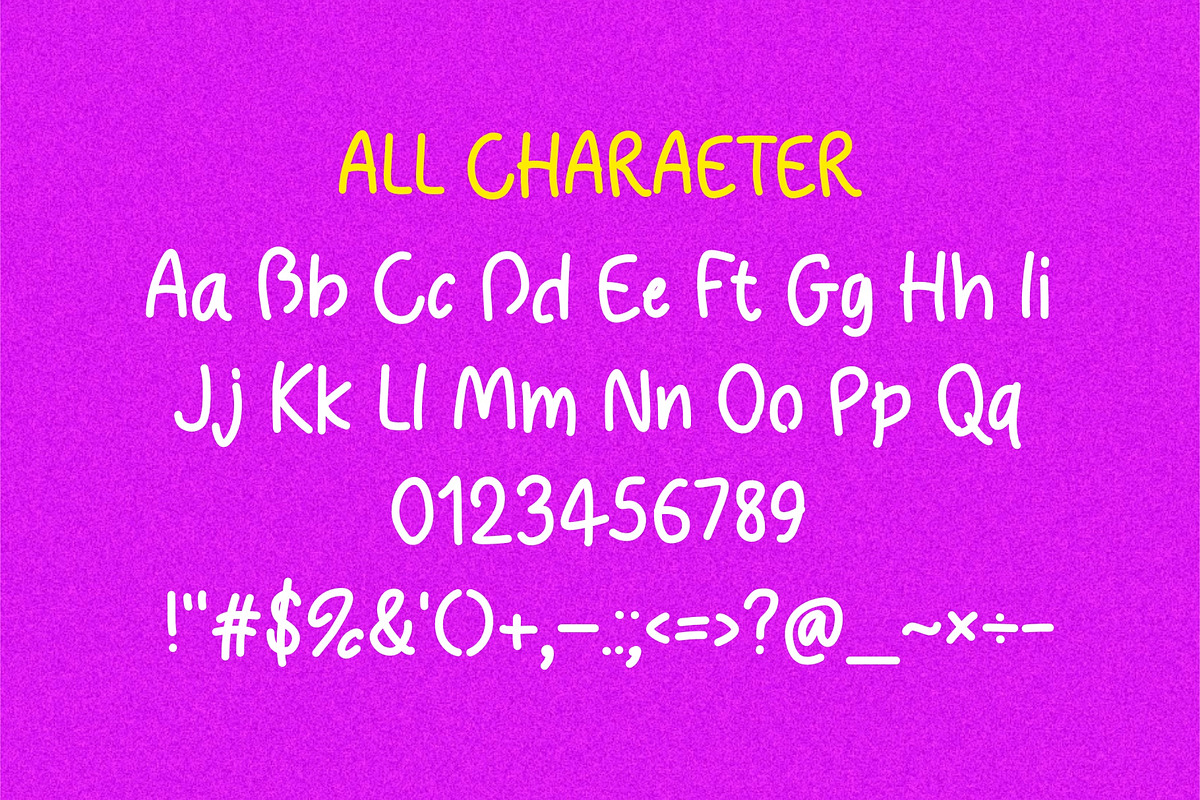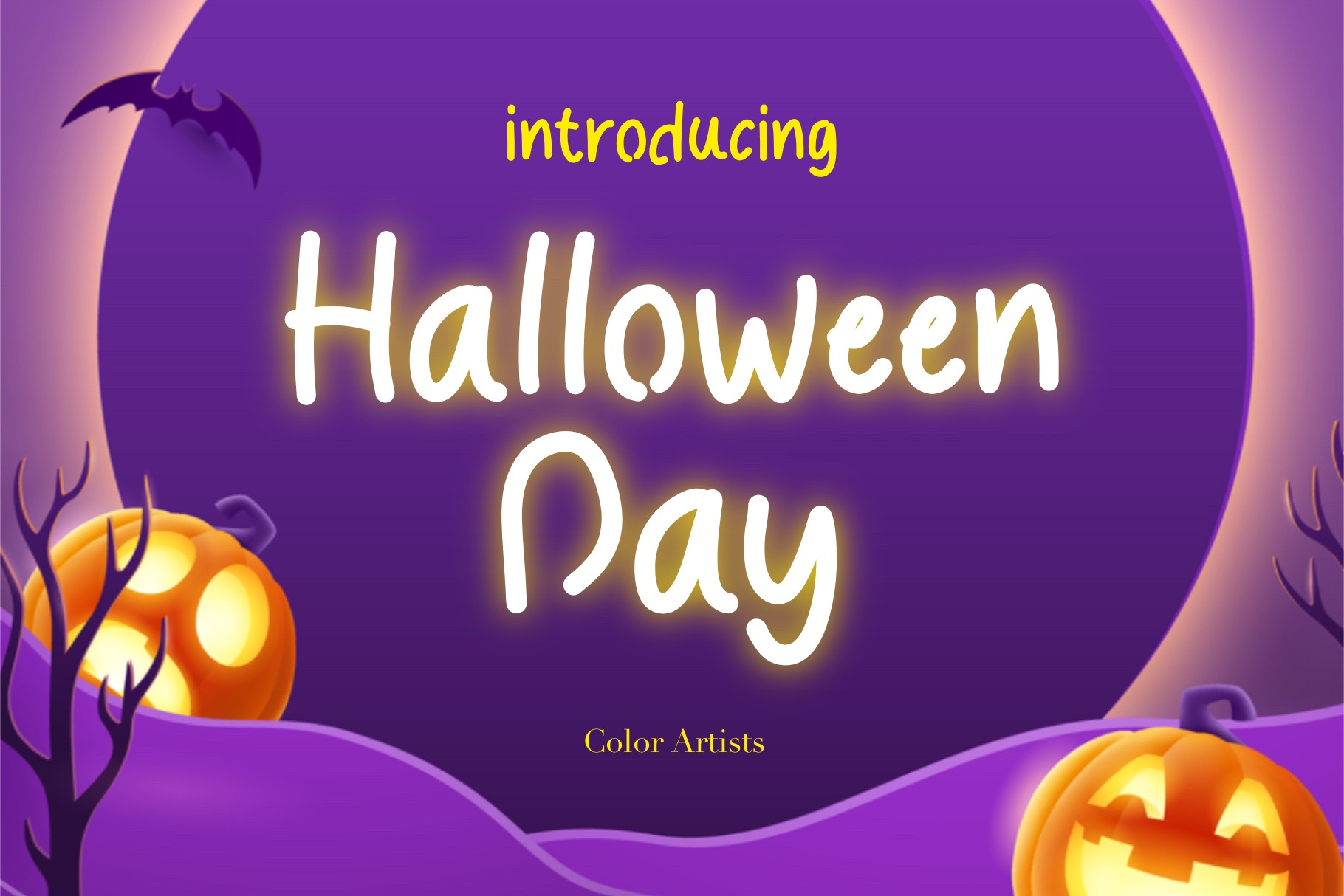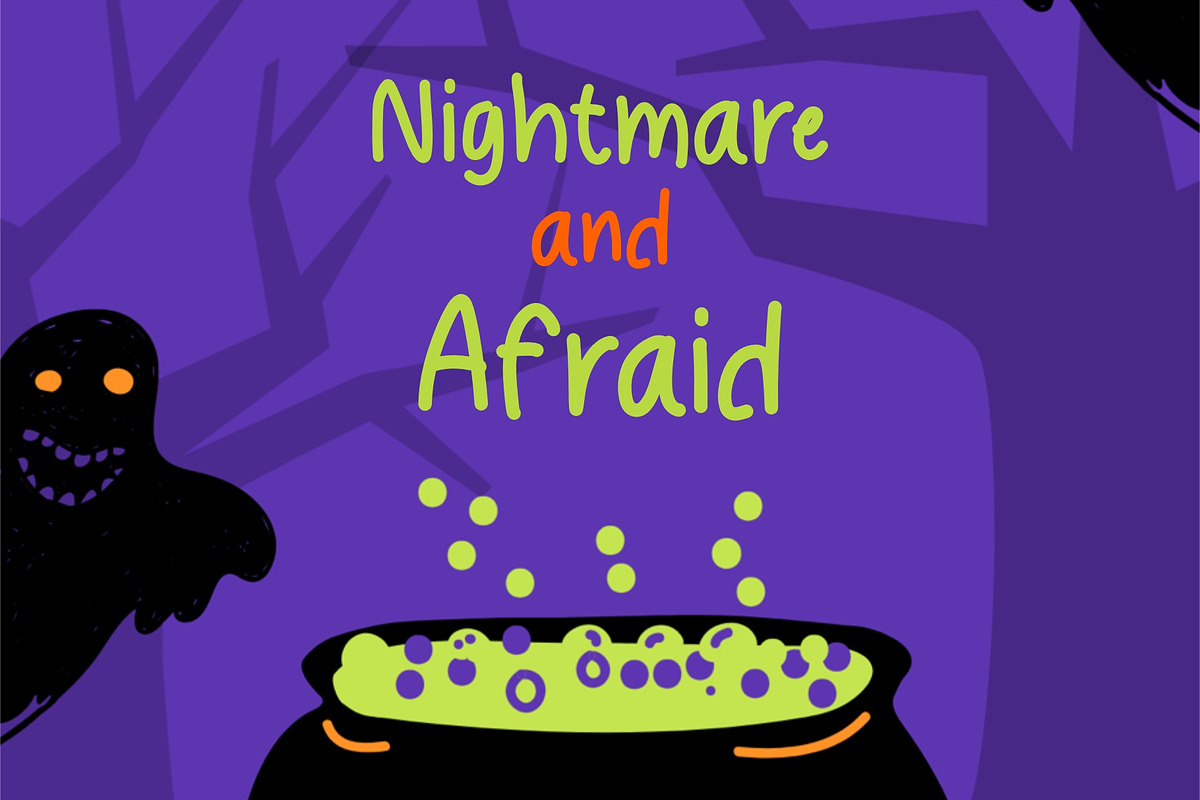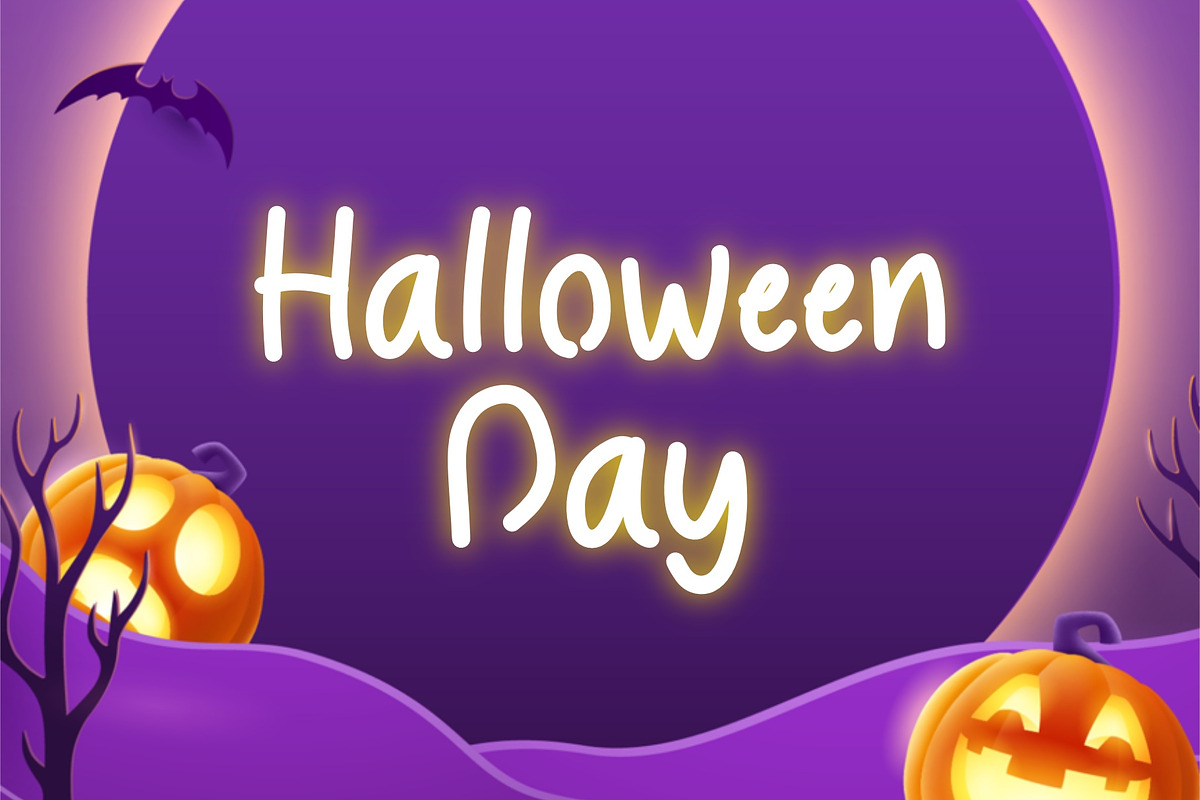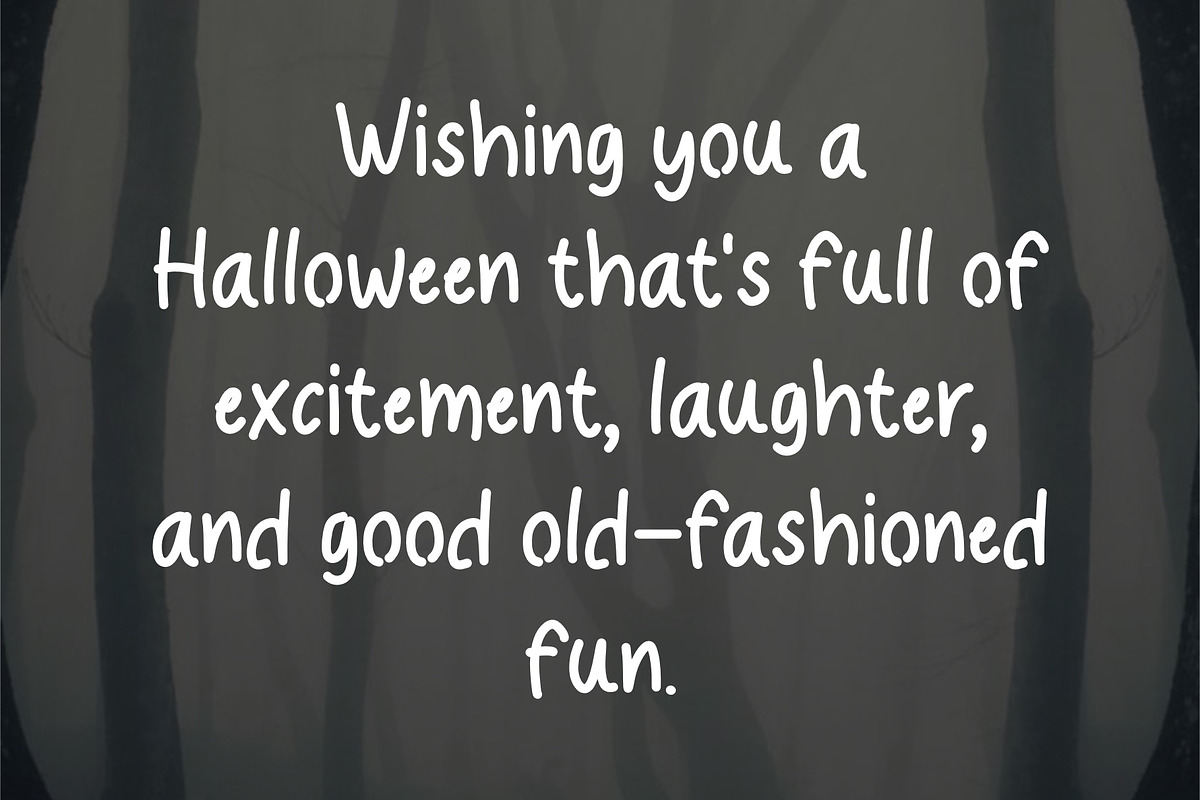
Halloween Day Font
Introducing the Halloween Day font, a typeface that embodies the spirit of this spooktacular holiday. With its playful and eerie letterforms, this font is perfect for adding a touch of Halloween magic to your designs.
Whether you’re creating party invitations, haunted house flyers, or wickedly fun social media posts, the Halloween Day font will bring an extra dose of frightful delight to your text.